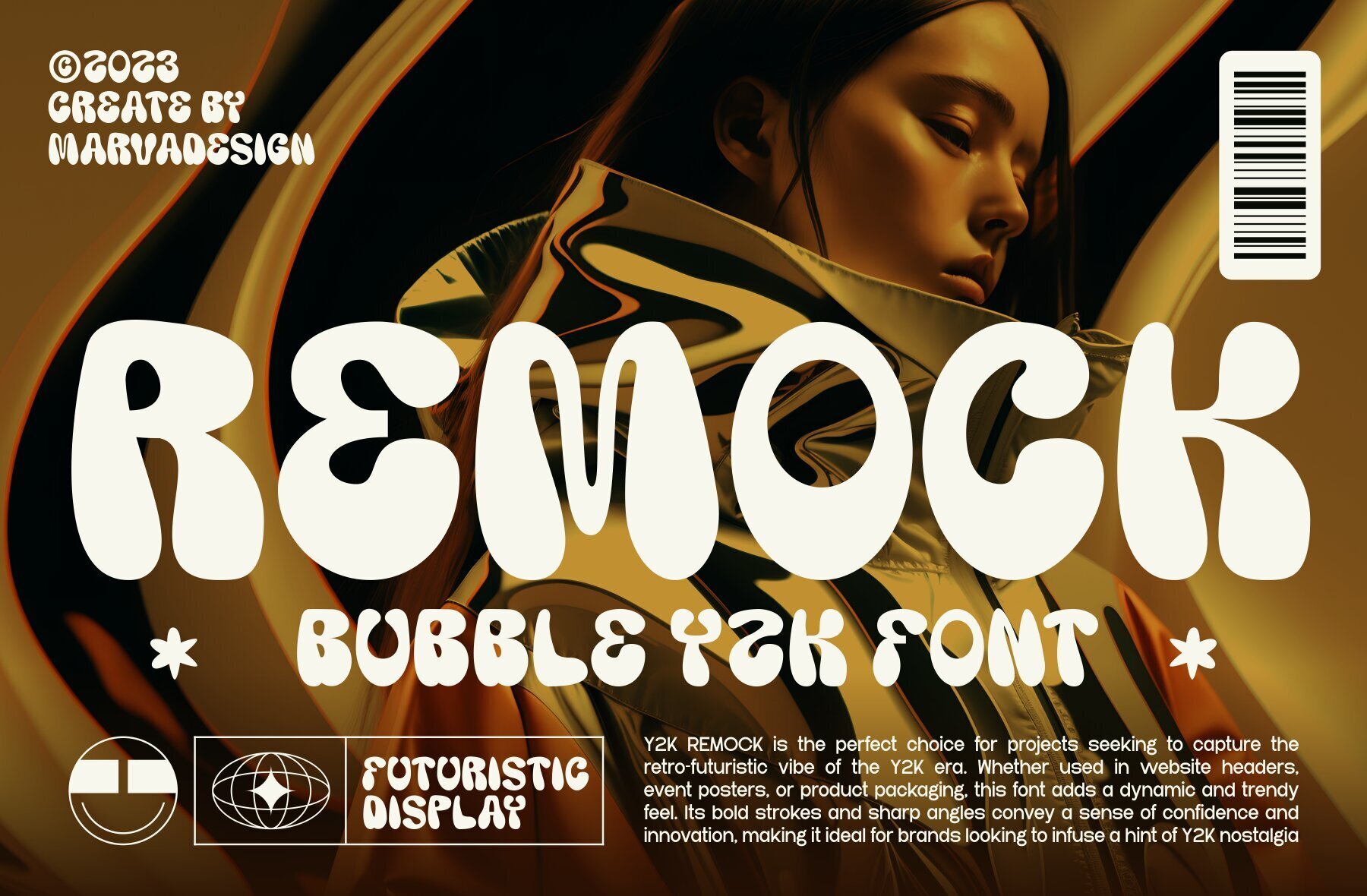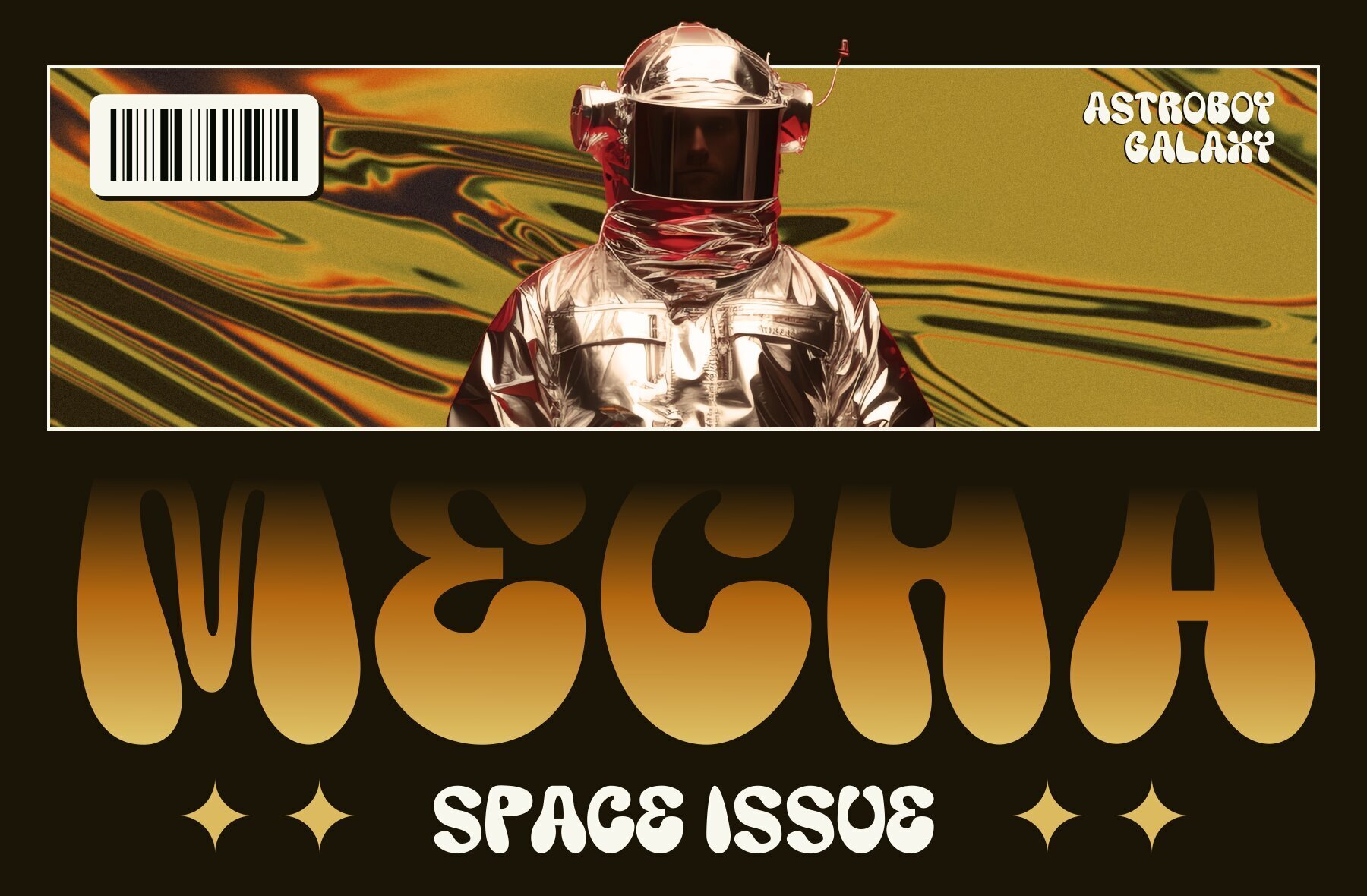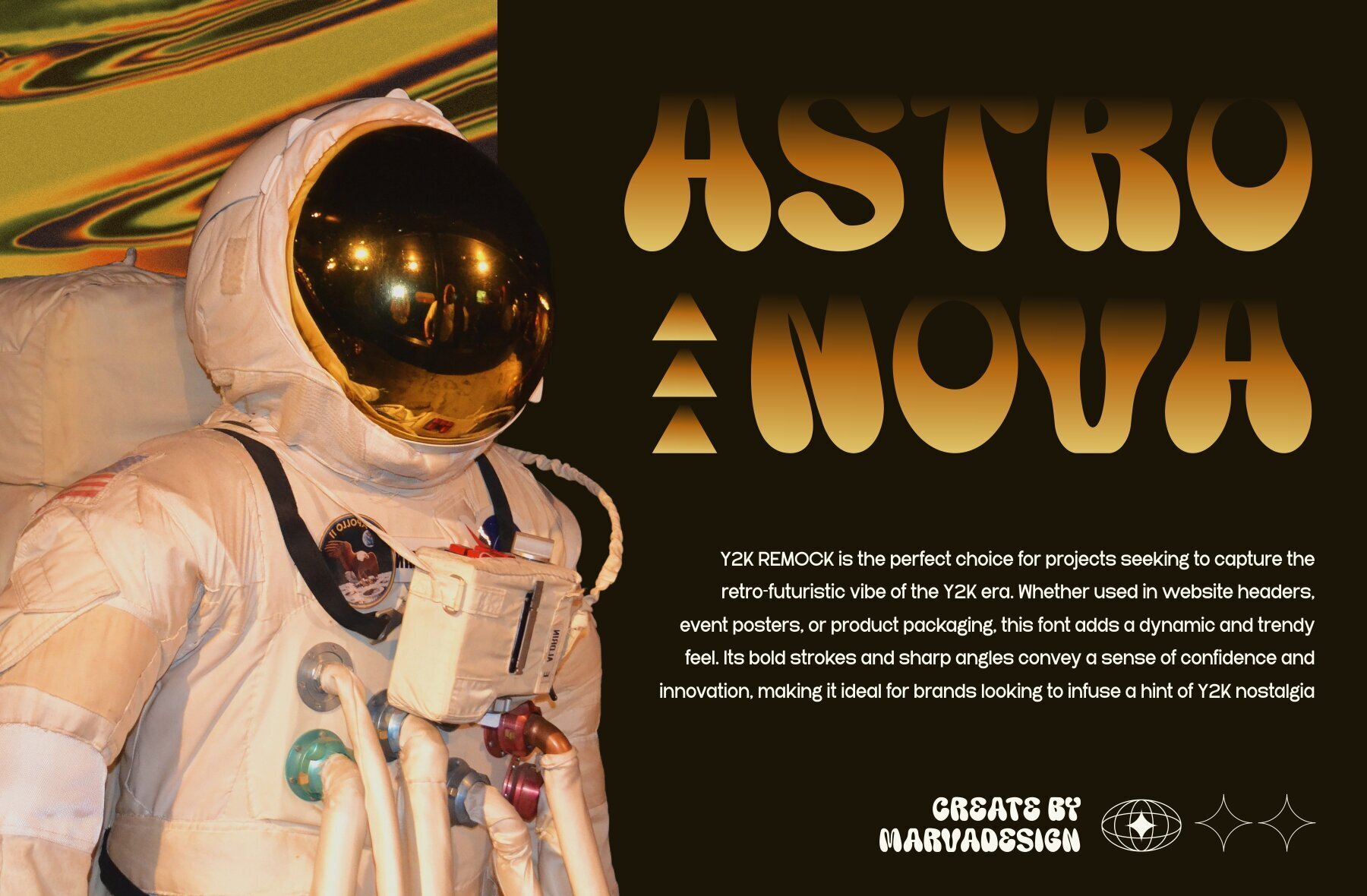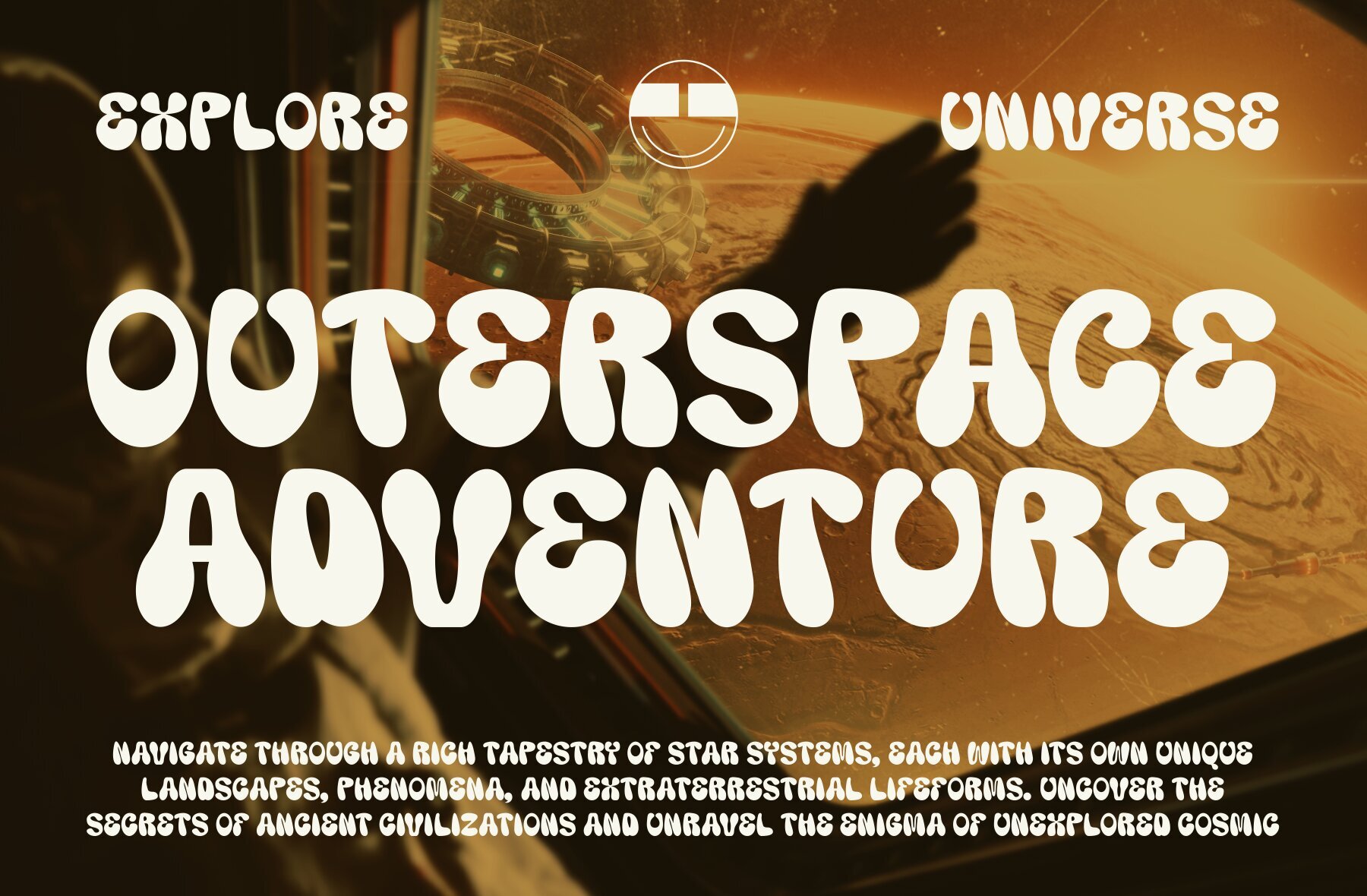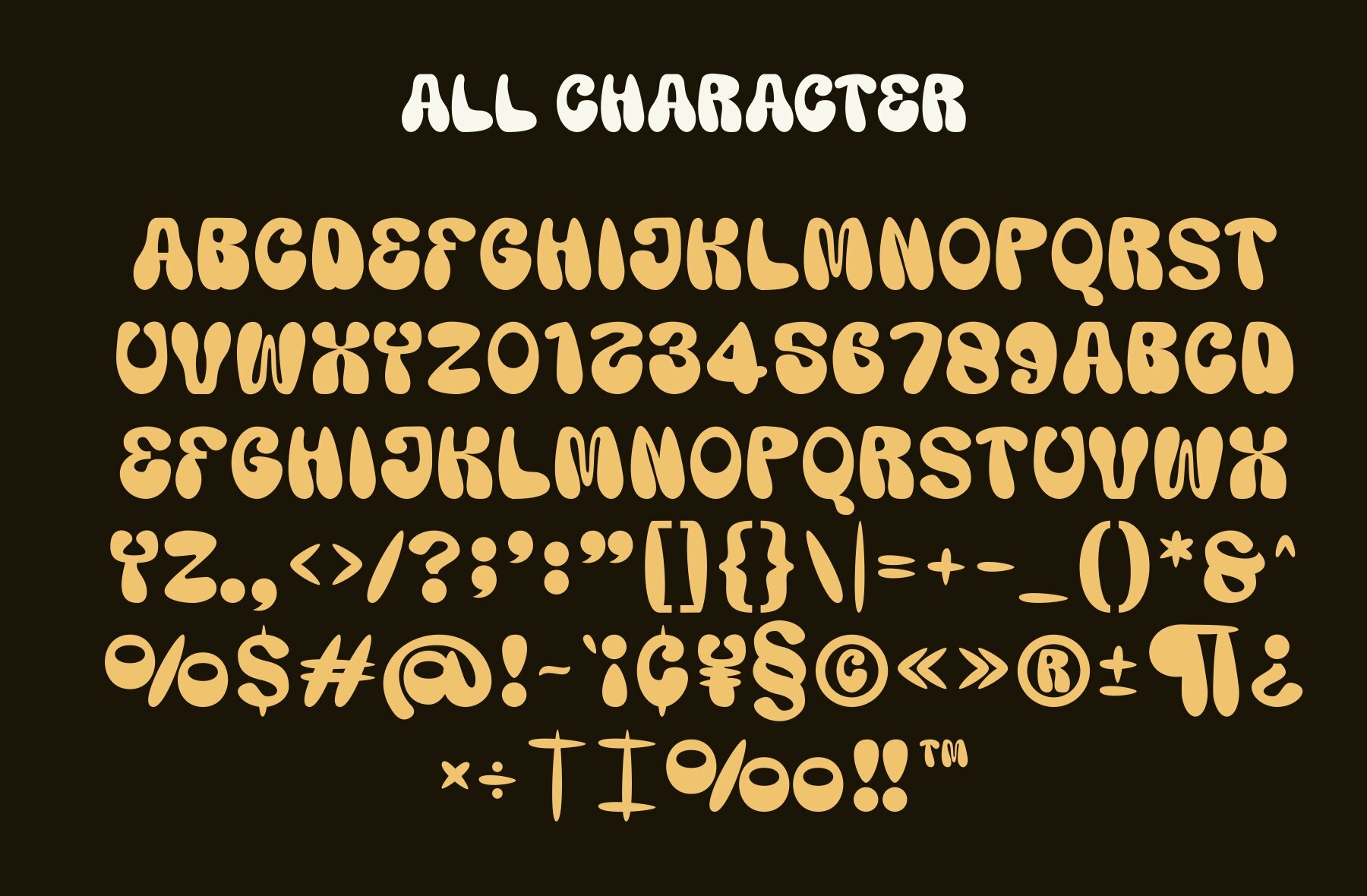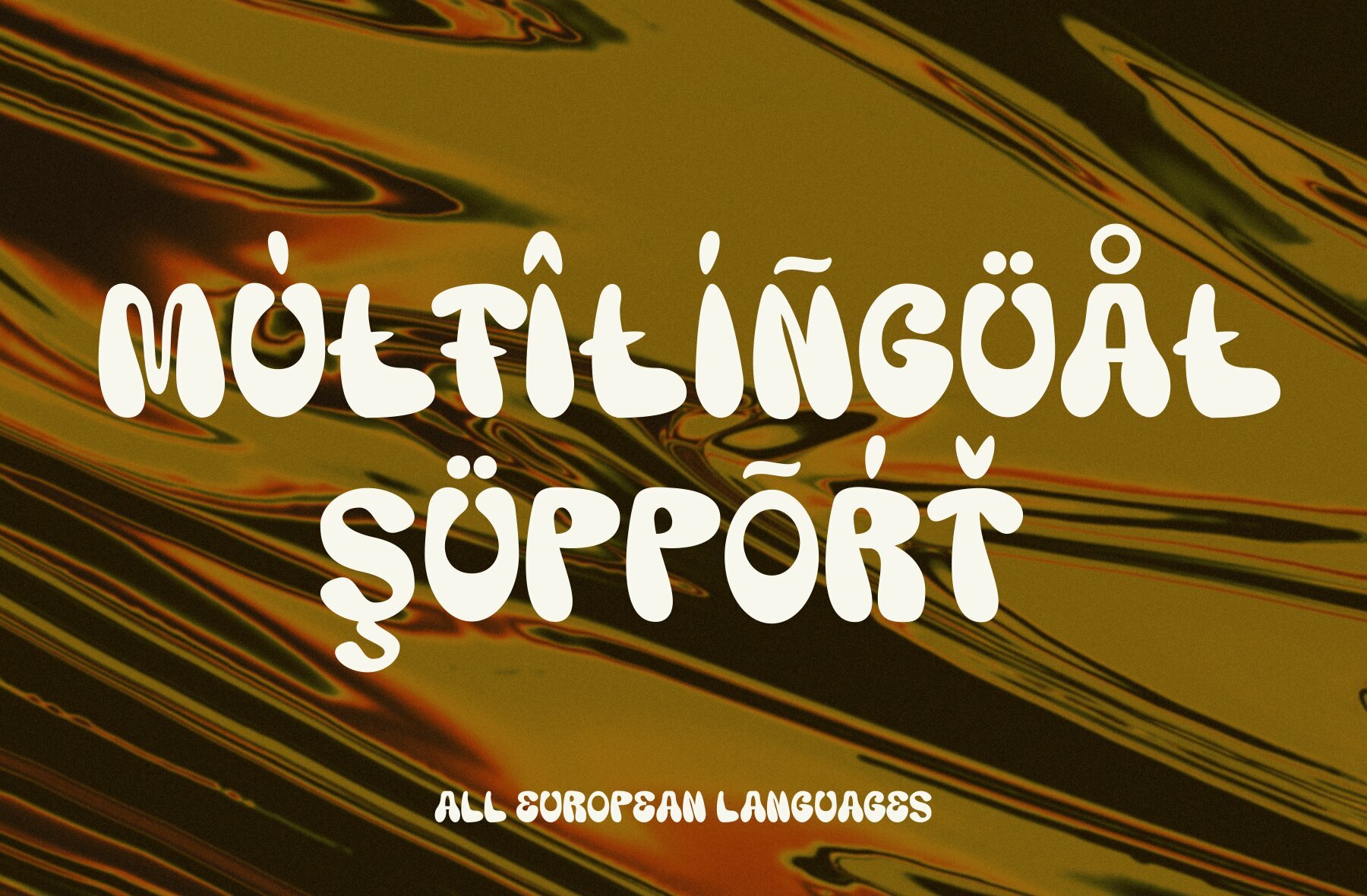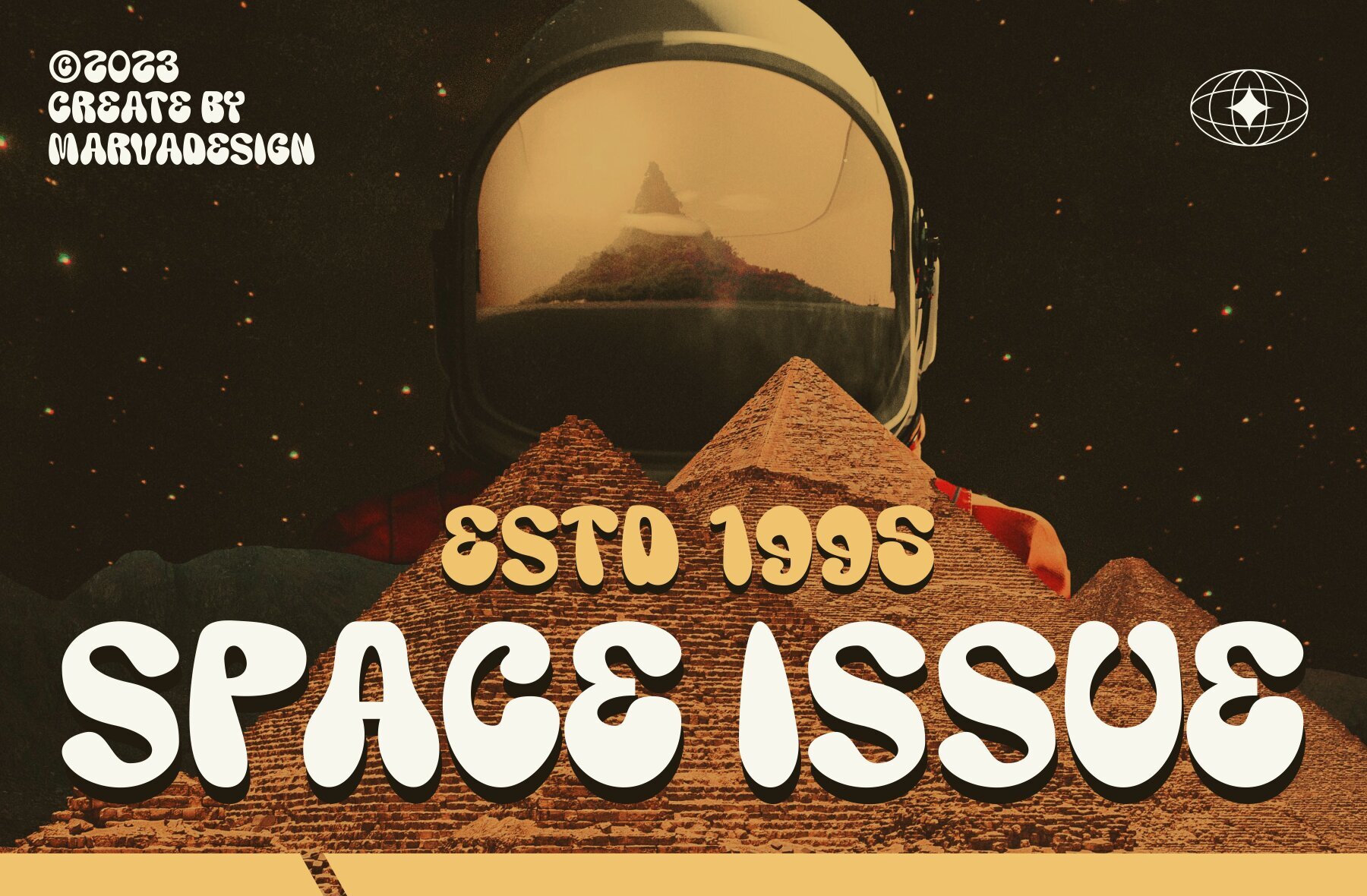
Remock Font
Remock Regular
Remock is a distinct display font capturing the essence of retro bubble style from the Y2K era. Ideal for diverse branding projects, Remock adds a unique touch to logos, templates, and products, standing out across various design contexts.Remock: Retro Bubble Y2K Font